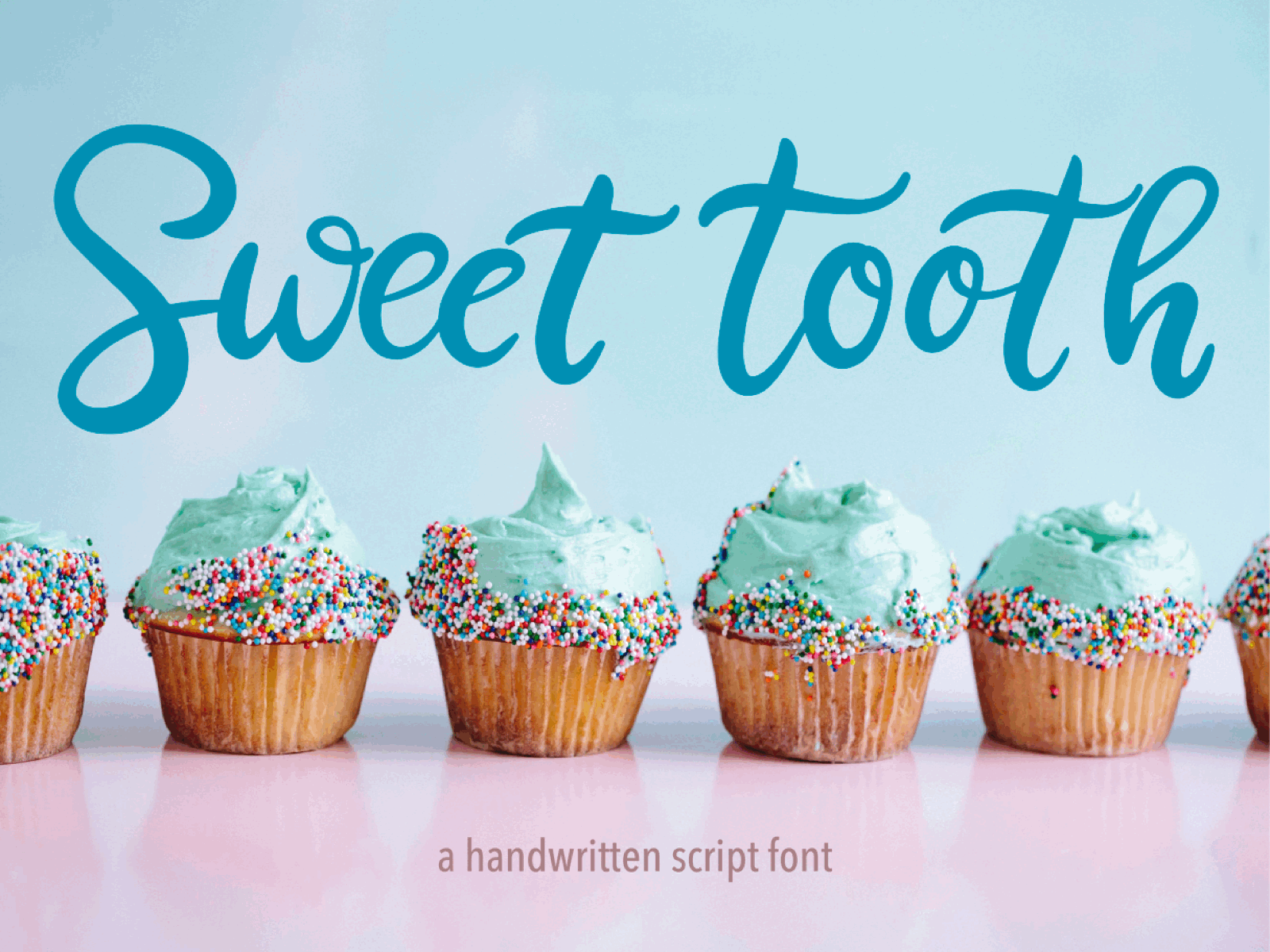
Sweet Tooth. A Handwritten Script Font.
I am happy to introduce my new handwritten script font Sweet Tooth. This font is bouncy and cheerful. It will look perfect for branding, package and menu design.
Hand-drawn script font Sweet Toothl contains 2 sets of uppercase and 3 sets of lowercase letters and big set of ligatures helping to imitate handwriting.
Multilingual support is included.
2 sets of Uppercase 3 sets of Lowercase Numerals & Punctuation Ligatures Multilingual support